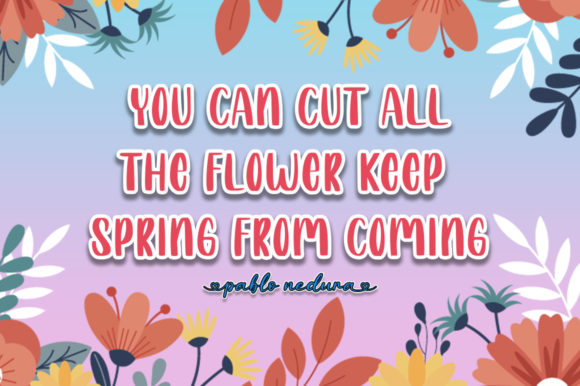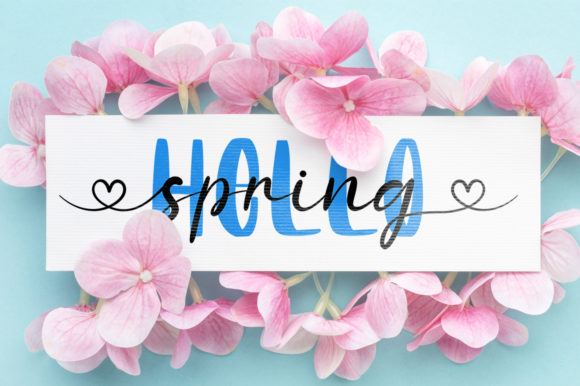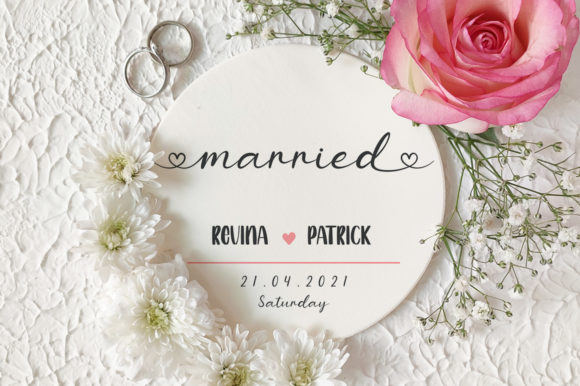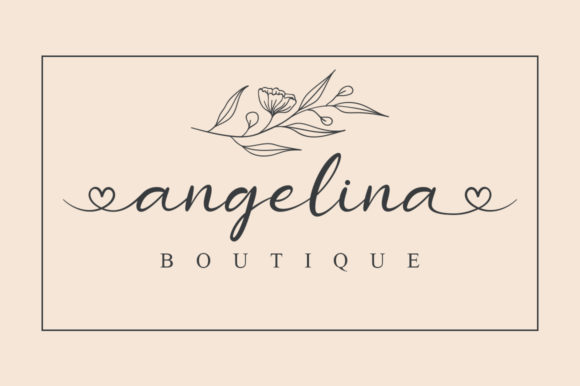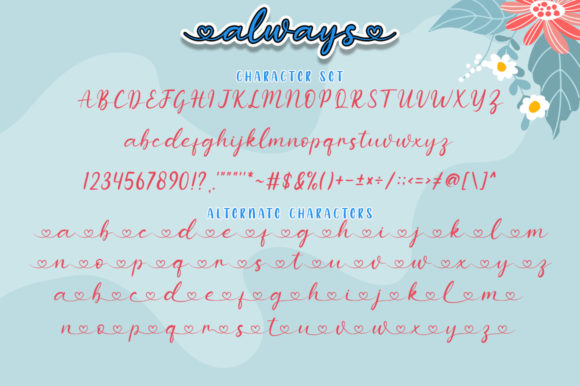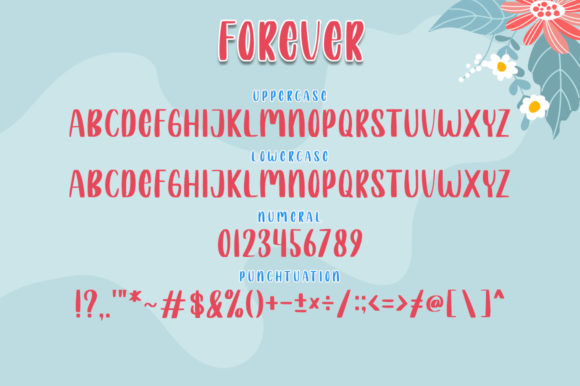
Introducing Always Forever Font: The Ultimate Duo-Styled Handwritten Font for Elegant Designs
Are you a designer or crafter looking for a font that exudes charm and elegance? Look no further than the Always Forever Font, a stunning duo-styled handwritten font that’s perfect for a variety of design projects. In this article, we’ll dive into the features and benefits of this beautiful font, and explore how it can elevate your designs to the next level.
A Font that Combines Charm and Elegance
Always Forever Font is a unique and versatile font that combines the best of both worlds: charm and elegance. Its handwritten style gives it a personal and approachable feel, while its elegant lines and curves make it perfect for designs that require a touch of sophistication. Whether you’re working on a wedding invitation, a thank you card, or a logo, this font is sure to impress.
One of the best things about Always Forever Font is its versatility. It’s perfect for a wide range of design projects, including:
- Quotes and typography art
Wherever you need to add a personal and elegant touch to your design, Always Forever Font is the perfect choice.
PUA Encoded for Easy Access to Glyphs and Swashes
Another great feature of Always Forever Font is that it’s PUA (Private Use Area) encoded. This means that you can access all of the glyphs and swashes with ease, giving you even more flexibility and creative control over your designs. With PUA encoding, you can:
- Access alternative characters and glyphs
- Add swashes and flourishes to your text
- Customize your font to suit your design needs
PUA encoding makes it easy to get the most out of Always Forever Font, and ensures that you can create unique and eye-catching designs that stand out from the crowd.
Why Choose Always Forever Font?
So why choose Always Forever Font over other fonts? Here are just a few reasons:
- Unique and elegant design: Always Forever Font has a distinctive and sophisticated look that’s sure to impress.
- Versatile and flexible: This font can be used for a wide range of design projects, from wedding invitations to logos and branding materials.
- PUA encoded for easy access to glyphs and swashes: With PUA encoding, you can customize your font and add extra flair to your designs.
Always Forever Font is a stunning duo-styled handwritten font that’s perfect for designers and crafters looking to add a touch of elegance and charm to their designs. With its unique and versatile design, PUA encoding, and ease of use, this font is a must-have for anyone looking to create beautiful and eye-catching designs. Whether you’re working on a wedding invitation, a logo, or a typography art piece, Always Forever Font is the perfect choice.